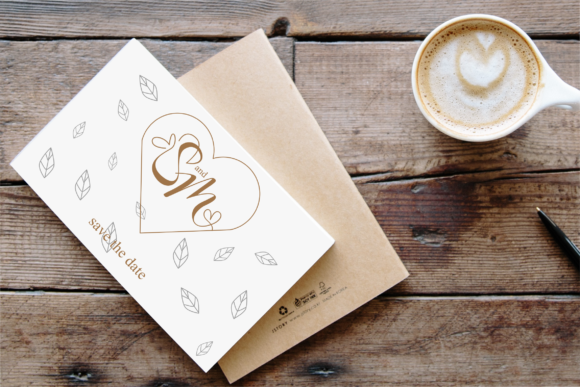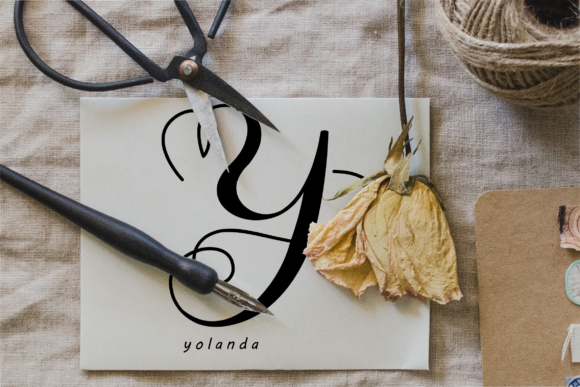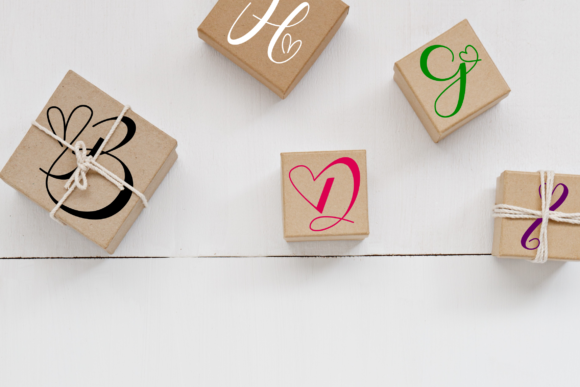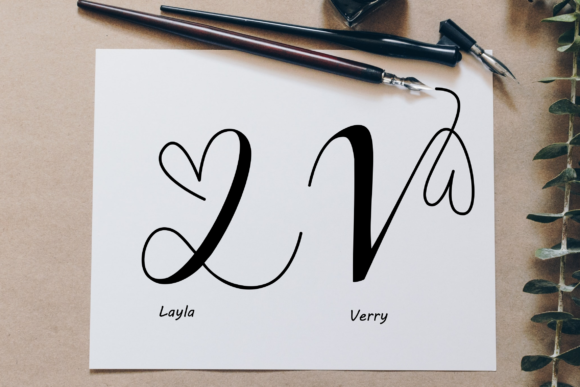
Introduction to Love Baby Monogram Font
Do you remember the moment when you first fell in love with a beautiful handwritten font? For many designers, it’s a moment that sparks endless creativity and inspires new projects. For me, it was the day I discovered the Love Baby Monogram Font – a stunning, elegant font that has been a game-changer in my design workflow.
With its delicate swashes and charming aesthetic, the Love Baby Monogram Font is a design resource that’s hard to resist. Whether you’re working on a creative project that requires a high-quality font or simply need a unique touch for your stationery, this font is a must-have. Its versatility and charm make it an ideal choice for designers looking to add a personal touch to their work.
Key Features of Love Baby Monogram Font
- High-quality design resource perfect for creative projects, such as baby shower invitations and nursery decor.
- Unique, hand-drawn monogram design with a delicate, cursive style that exudes love and warmth.
Honest Review: Love Baby Monogram Font
I recently had the chance to work with the Love Baby Monogram Font, and I must say it was a delightful experience. This font is perfect for any creative project that requires a touch of warmth and elegance.
What works well: ✨ The font is incredibly versatile and can be used for various purposes, from baby shower invitations to nursery decor. The Love Baby Monogram Font is available for free download, making it an excellent design resource for those on a budget. Additionally, it’s available in a variety of formats, including EPS, OTF, and TTF.
- Perfect for baby-themed designs, weddings, and other special occasions
Overall, I’m thoroughly impressed with the Love Baby Monogram Font. It’s a fantastic design resource that’s both elegant and versatile. Whether you’re working on a creative project or just need a special touch, this font is definitely worth checking out.
Use the font on a transparent background to create a high-quality design that stands out. Experiment with different font sizes, colors, and styles to create a unique look that suits your design project.
The Love Baby Monogram Font is commonly used for baby-themed designs, including baby shower invitations, nursery decorations, and baby gift tags. It can also be used for other creative projects that require a cute and playful font.